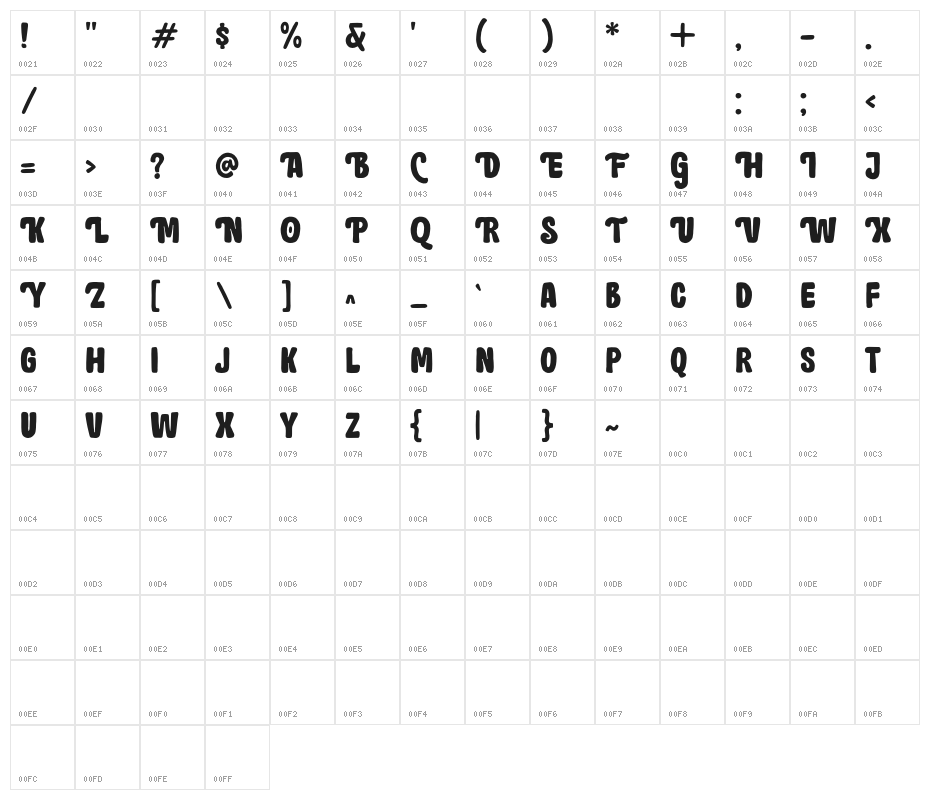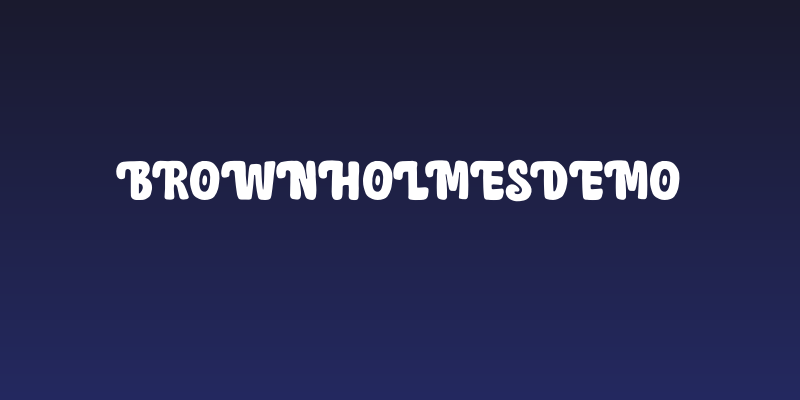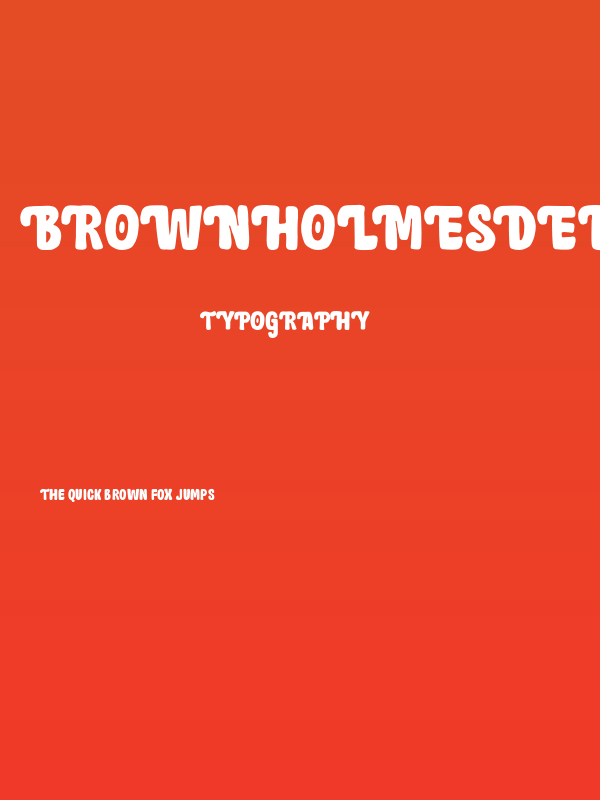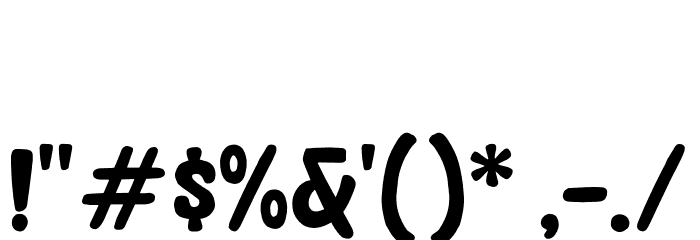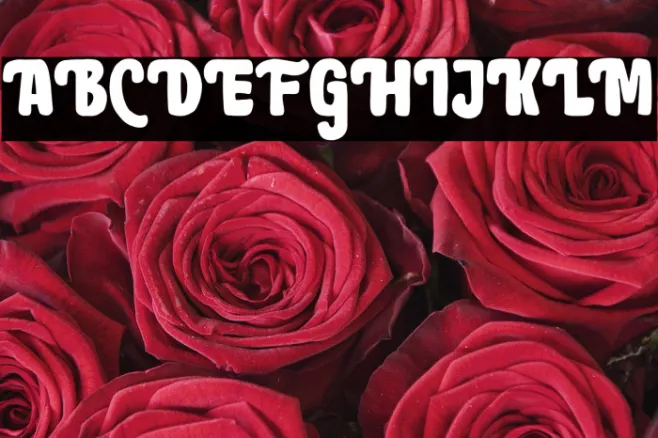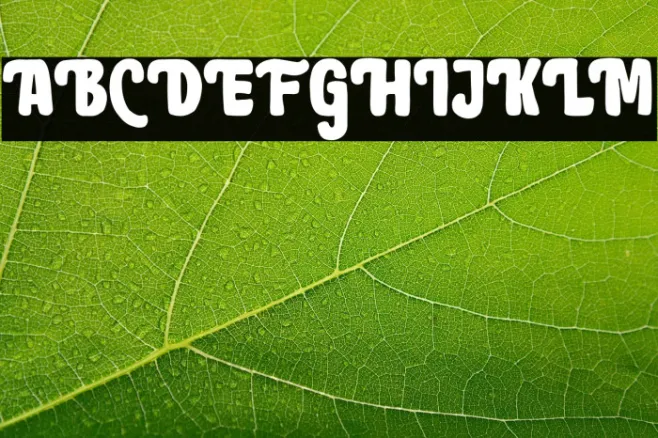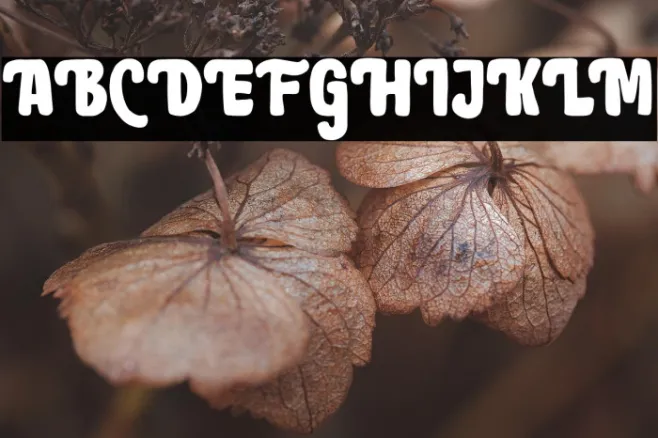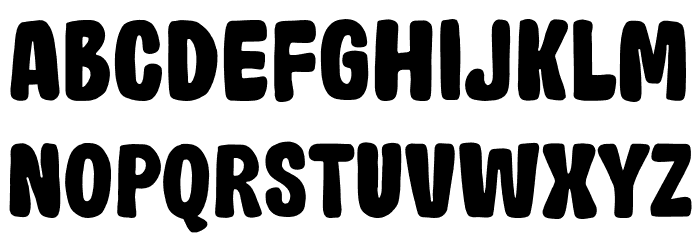
BrownHolmesDEMO Font
This font features a bold and playful style with rounded edges and a slightly irregular shape, giving it a friendly and approachable appearance. The uppercase letters are prominent and have a whimsical flair, while the lowercase letters maintain a consistent and harmonious look. The numbers and special characters are designed to match the overall playful theme, making them suitable for creative and informal projects. The font's thick strokes and rounded forms contribute to its distinctive and eye-catching style.
| Use Case | Logos, Posters, Creative Invitations |
| Proposed Projects | Ideal for children's books, playful branding, posters, and creative invitations. |